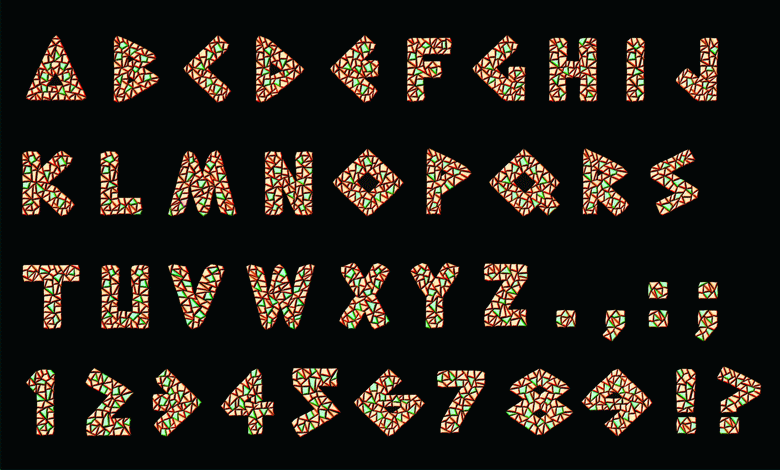
Font name: | Greek To Me |
Categories | Foreign look, Roman, Greek |
Author: | Mike Wolf |
Note by Mike Wolf | |
This one has a mosaic motif, so I guess it seemed logical to call it something greek, even thought I myself am not Greek. |